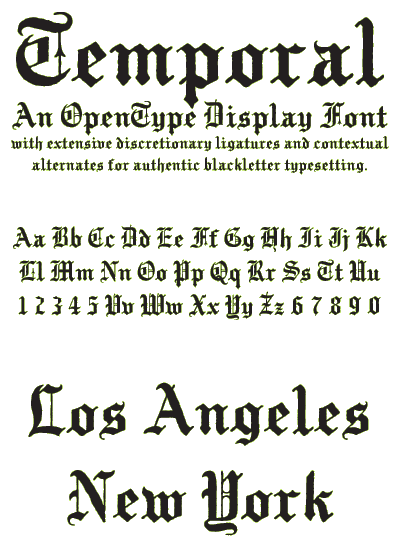
This is one of a suite of fonts developed for creating replicas of vintage newspapers. Temporal was inspired by the nameplate of a major metropolitan daily as it appeared in the 1920s. The font has east coast and west coast variations of some key letters, and a complete international character set.